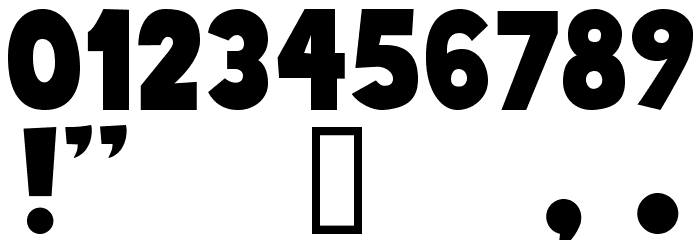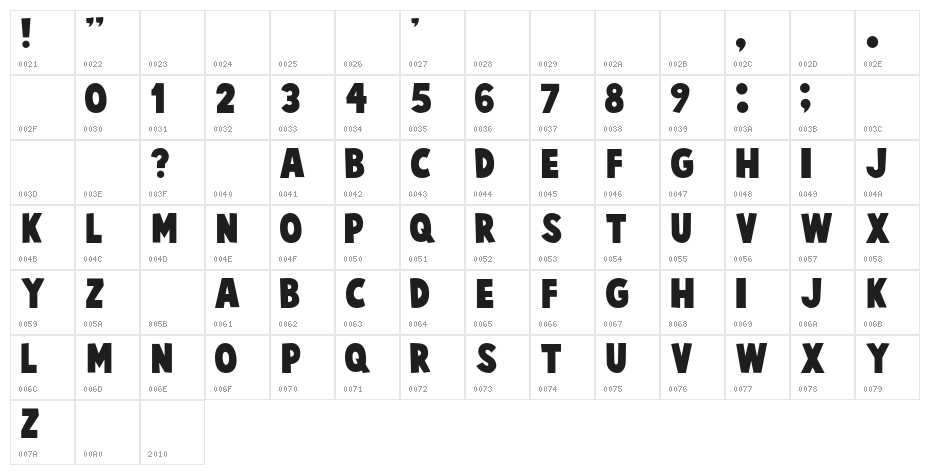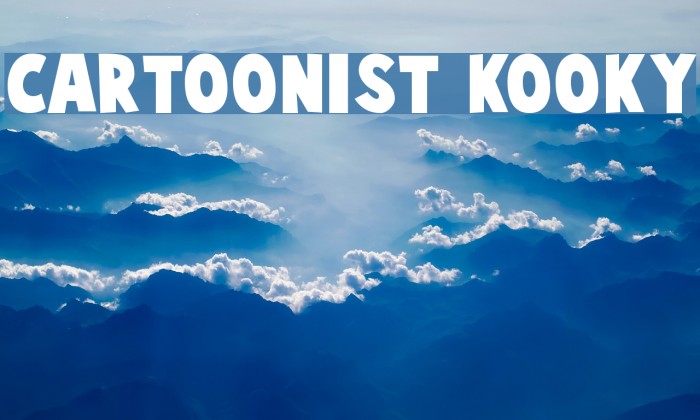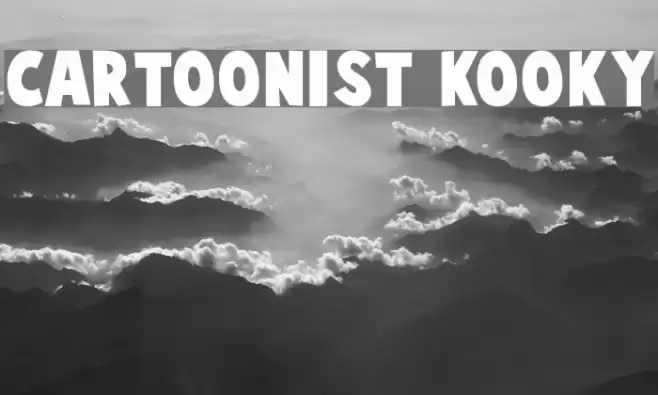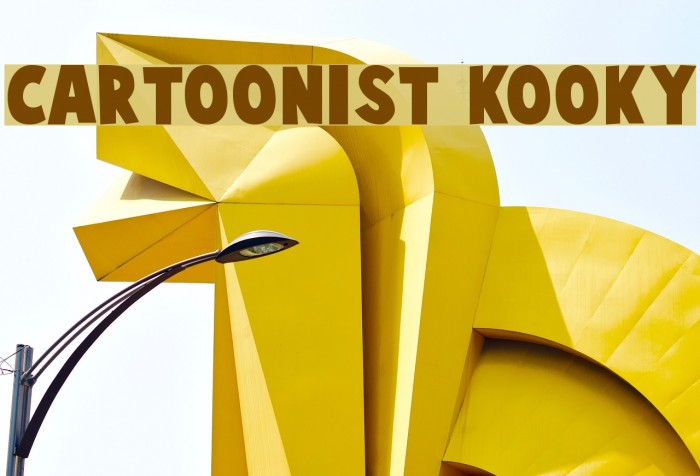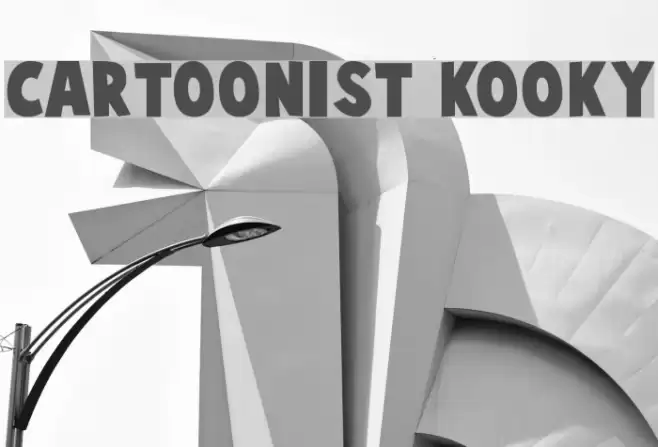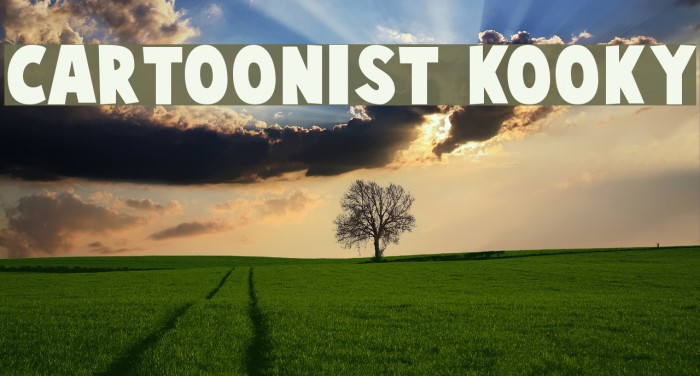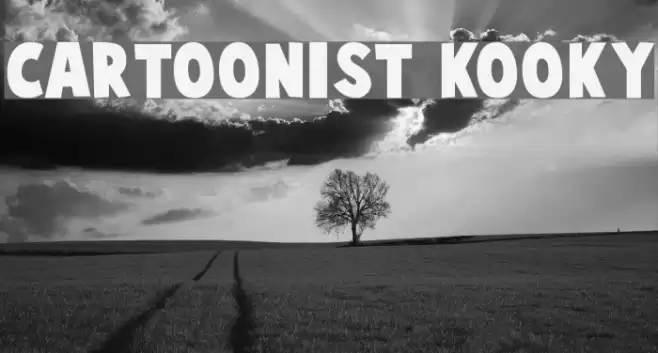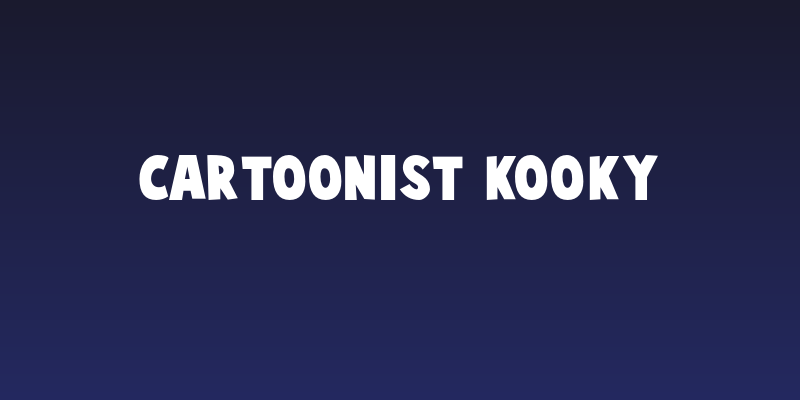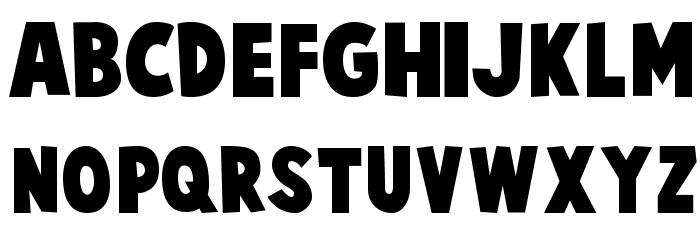
Cartoonist Kooky Font
Cartoonist Kooky Description
This font exhibits a playful and bold style, characterized by its thick, rounded letterforms that convey a sense of fun and whimsy. The uppercase and lowercase letters maintain a consistent weight, contributing to a cohesive look. The numbers and special characters follow the same design principles, ensuring uniformity across all glyphs. The font's exaggerated curves and slightly irregular shapes give it a hand-drawn appearance, making it ideal for creative and informal applications. Its strong presence and unique personality make it stand out, perfect for catching attention in various design contexts.
| Proposed Projects | Ideal for children's books, comic strips, playful branding, and eye-catching posters. |